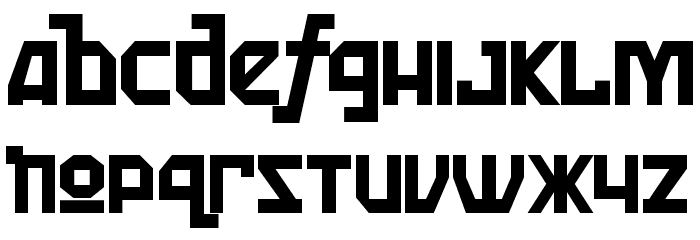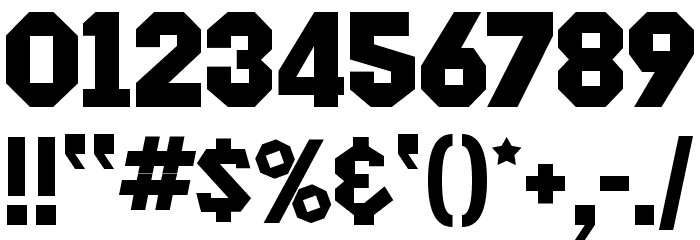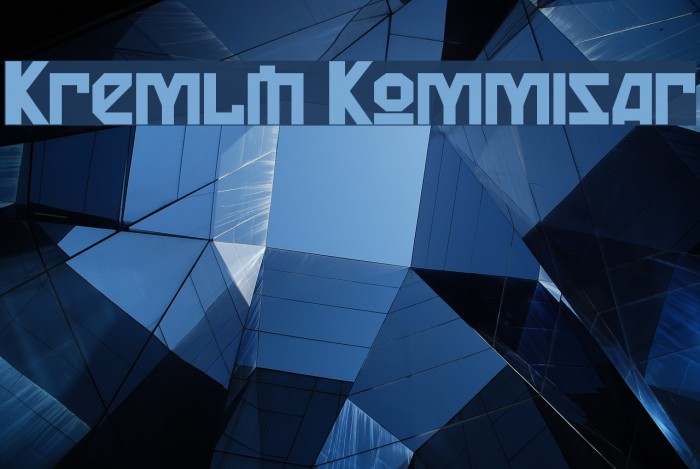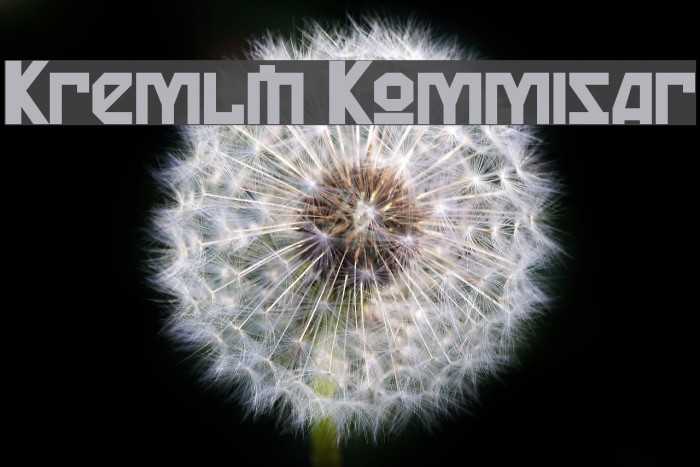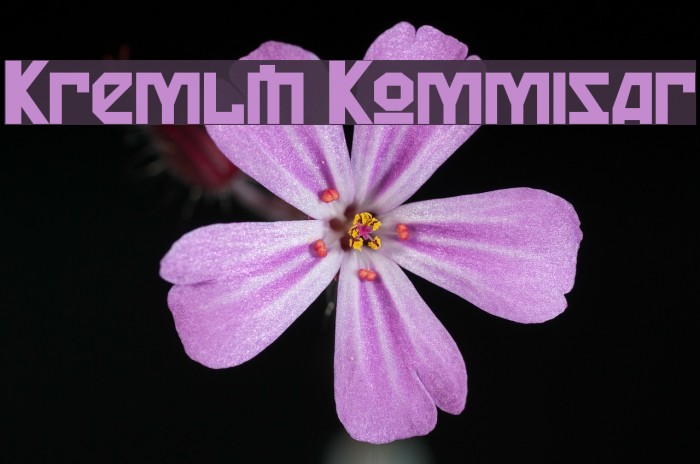
Kremlin Kommisar Font
This font features a bold, geometric design with sharp angles and a strong presence. The characters are constructed with thick, block-like strokes, giving them a robust and industrial feel. The uppercase and lowercase letters maintain a consistent style, with unique angular cuts that add a distinctive flair. The numerals and special characters follow the same design principles, ensuring uniformity across the typeface. This font's boldness and geometric nature make it stand out, suitable for attention-grabbing designs.
A bold, geometric font with sharp angles and a strong, industrial feel.
- Proposed Projects: Ideal for posters, logos, branding, and any project requiring a bold, impactful typeface.